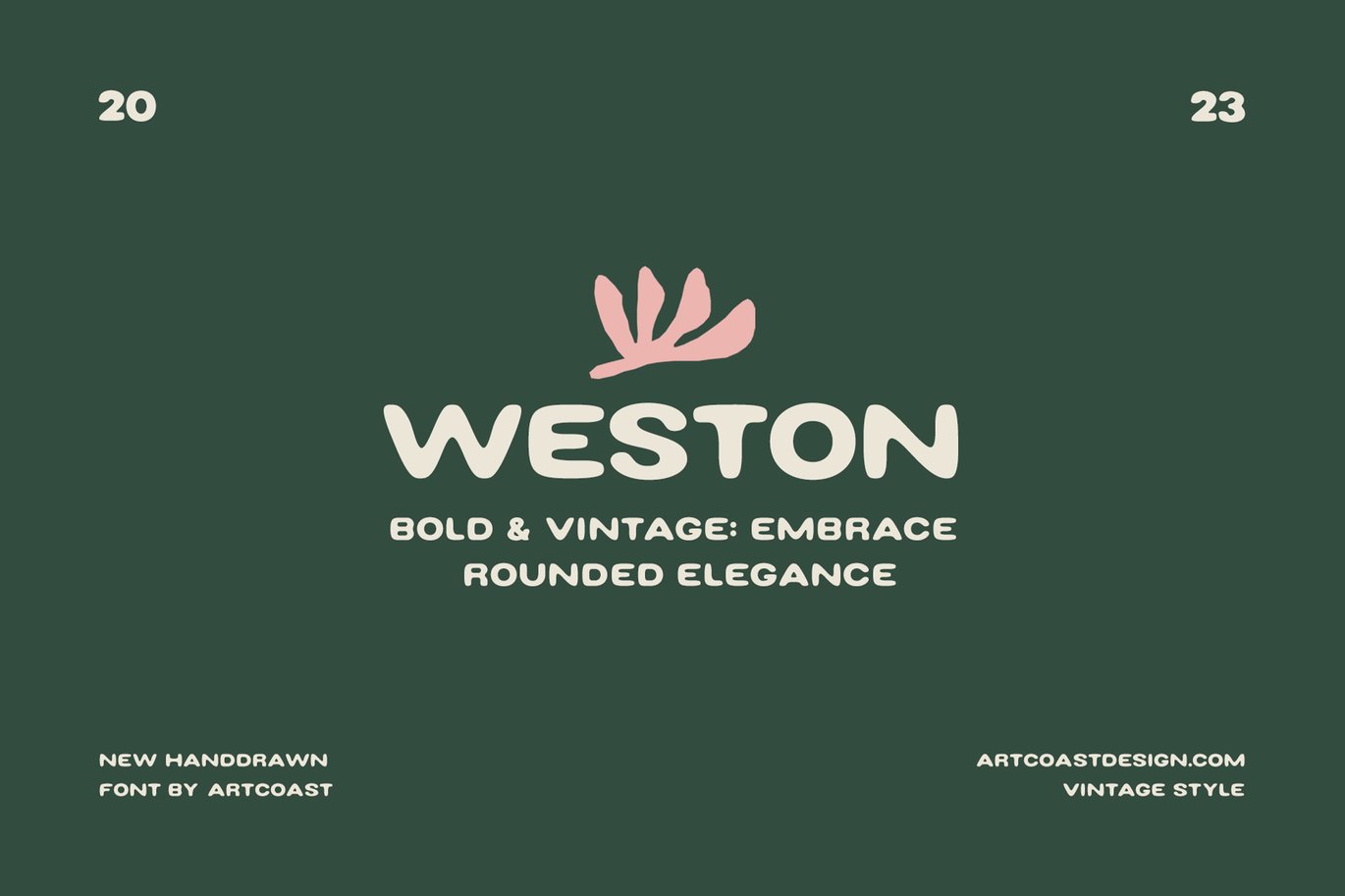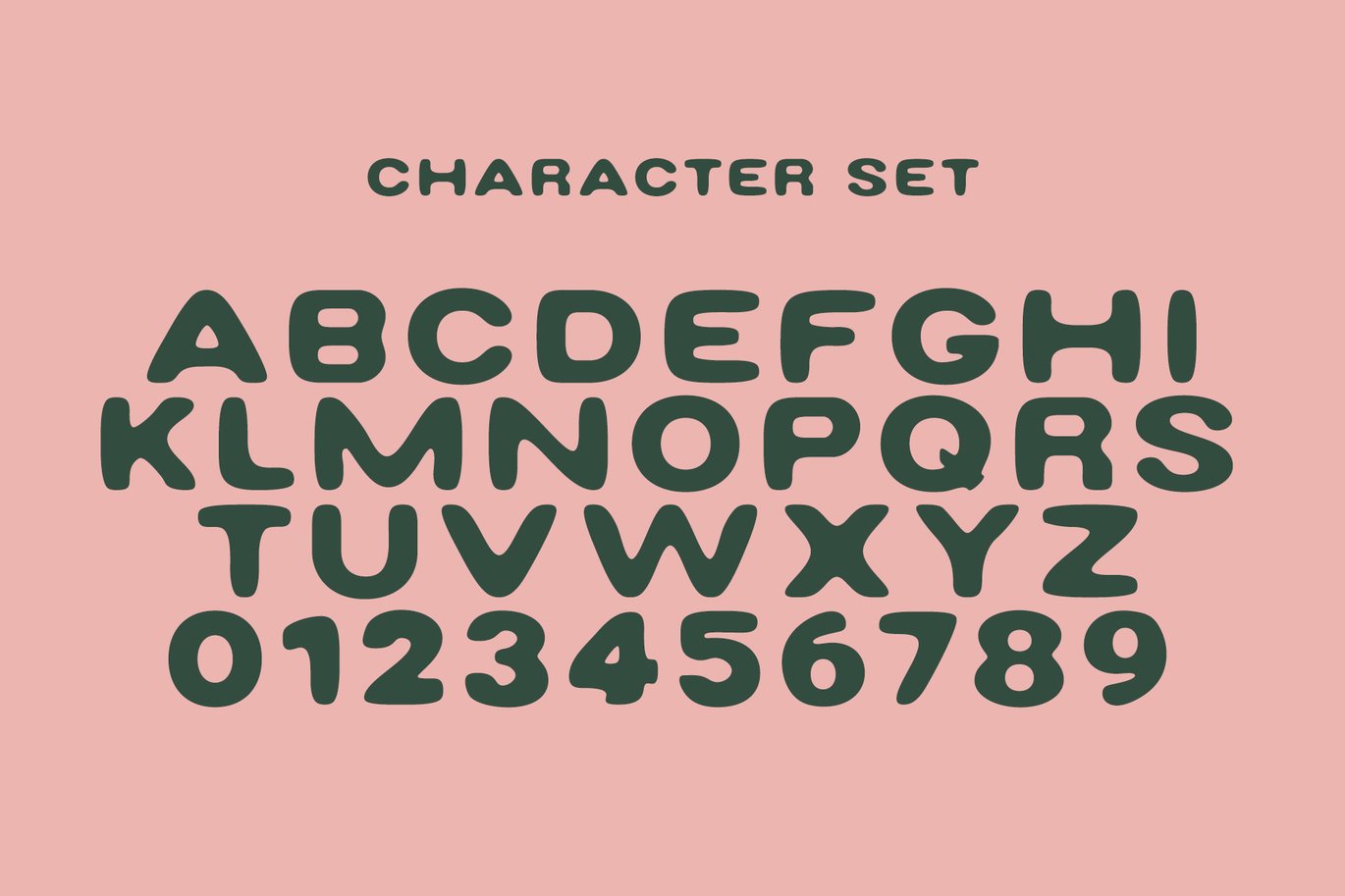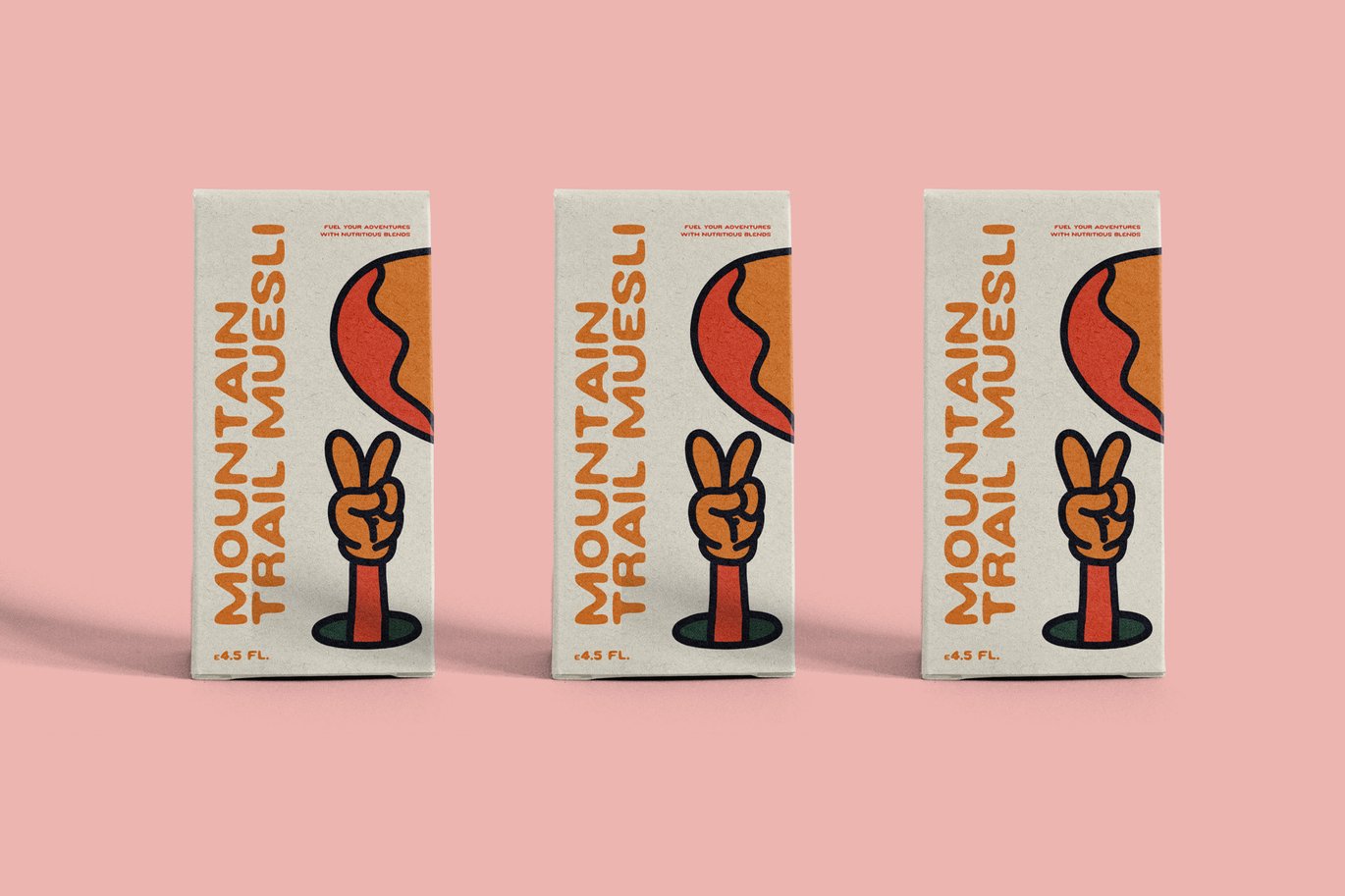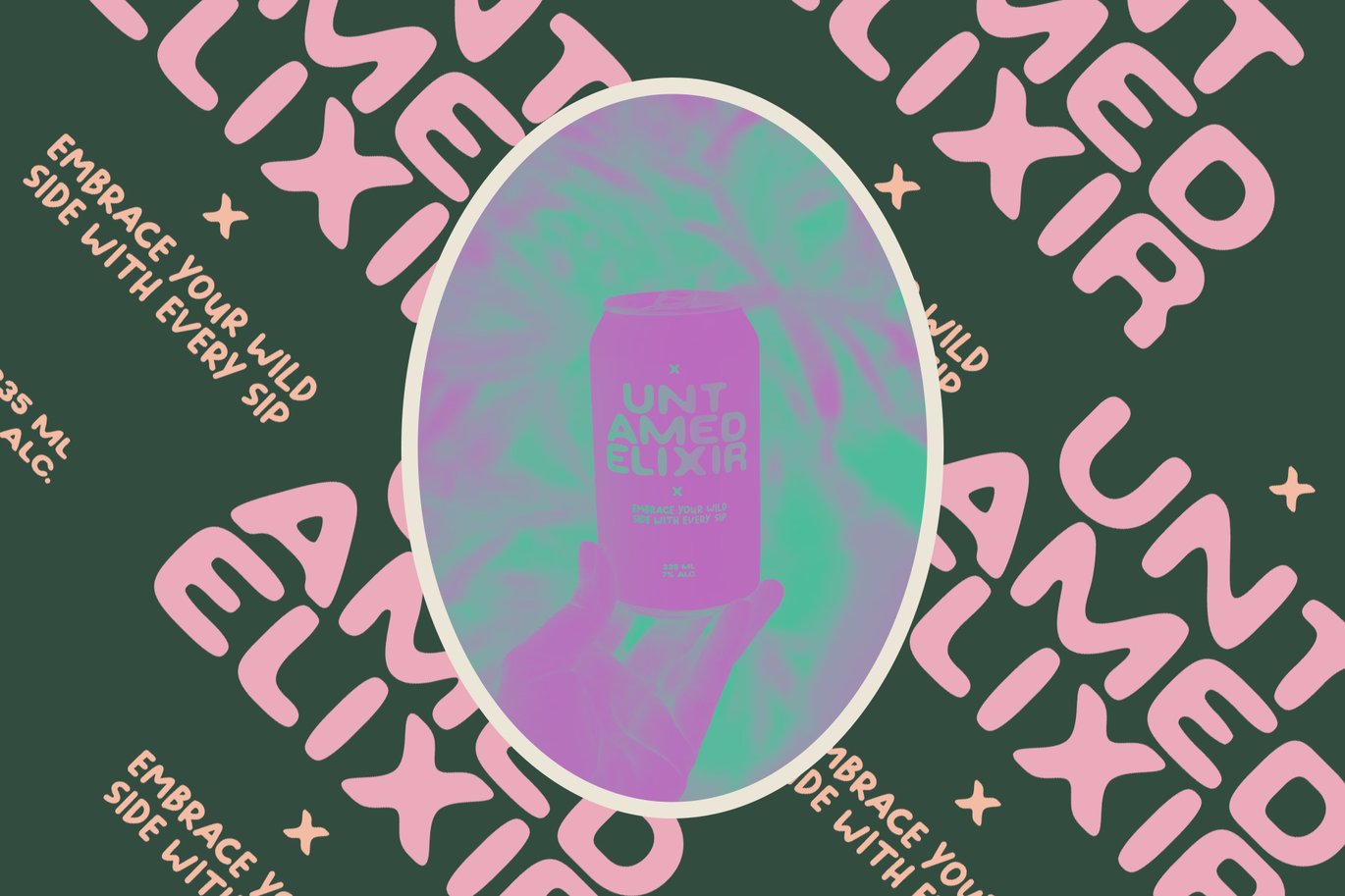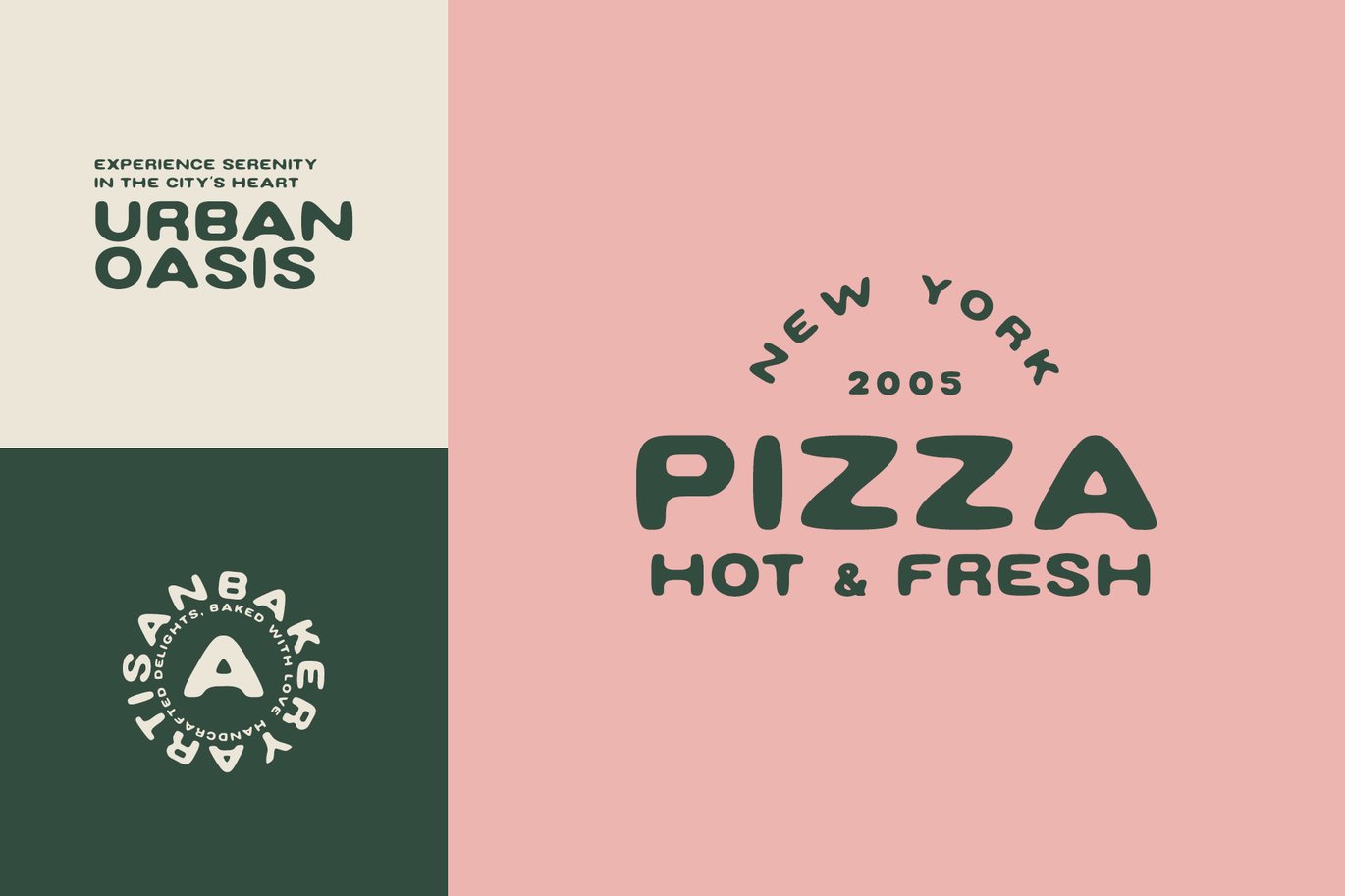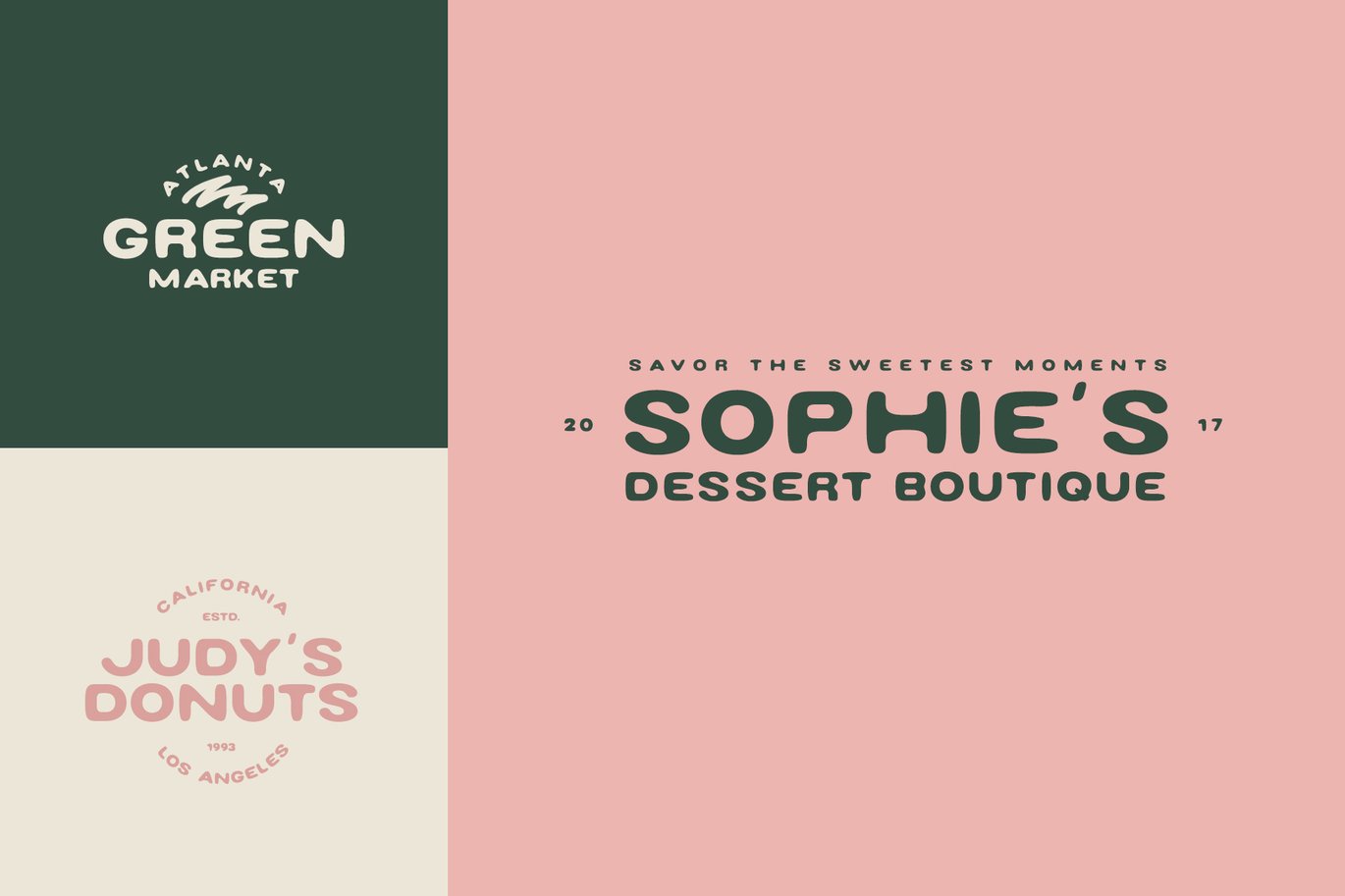
SA Weston – Playful Font
Introducing SA Weston – a bold, handwritten vintage font that exudes timeless charm and style. With its thick strokes and rounded edges, this versatile typeface is the perfect choice for eye-catching logos, captivating headlines, and distinctive packaging designs. Bring a touch of nostalgic elegance to your projects with SA Weston, and let your creativity flourish.